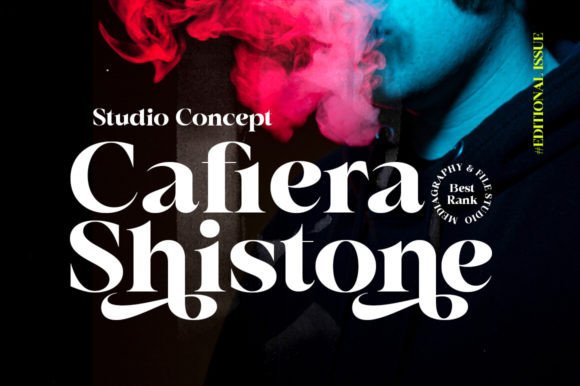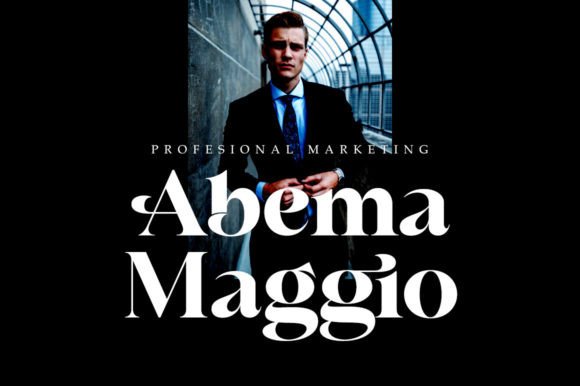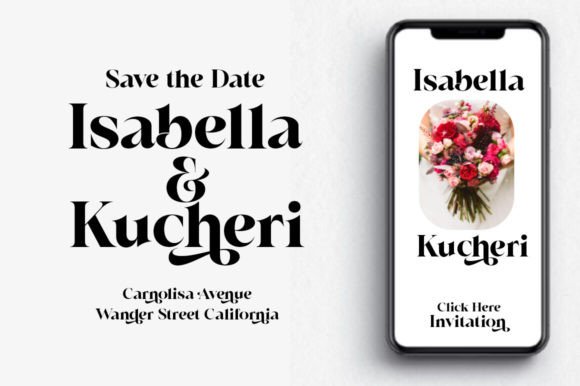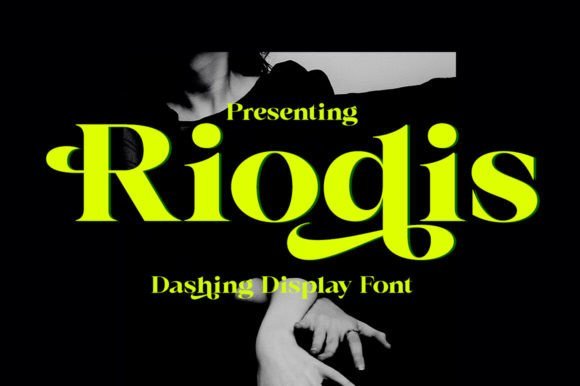
Introduction to Riodis Font
Riodis Display is a serif font with a luxurious, elegant, modern, unique, and classy appearance.
This font is specially created for luxury-themed projects, branding projects, Magazines, Social Media, Branding, Logos, website headers, or simply as a stylish text overlay on any background image and many more that require a luxurious touch .
Riodis Font offers exceptional quality and versatility, making it a valuable addition to your design toolkit. Whether you’re creating for personal projects or commercial use, Riodis Font delivers professional results.